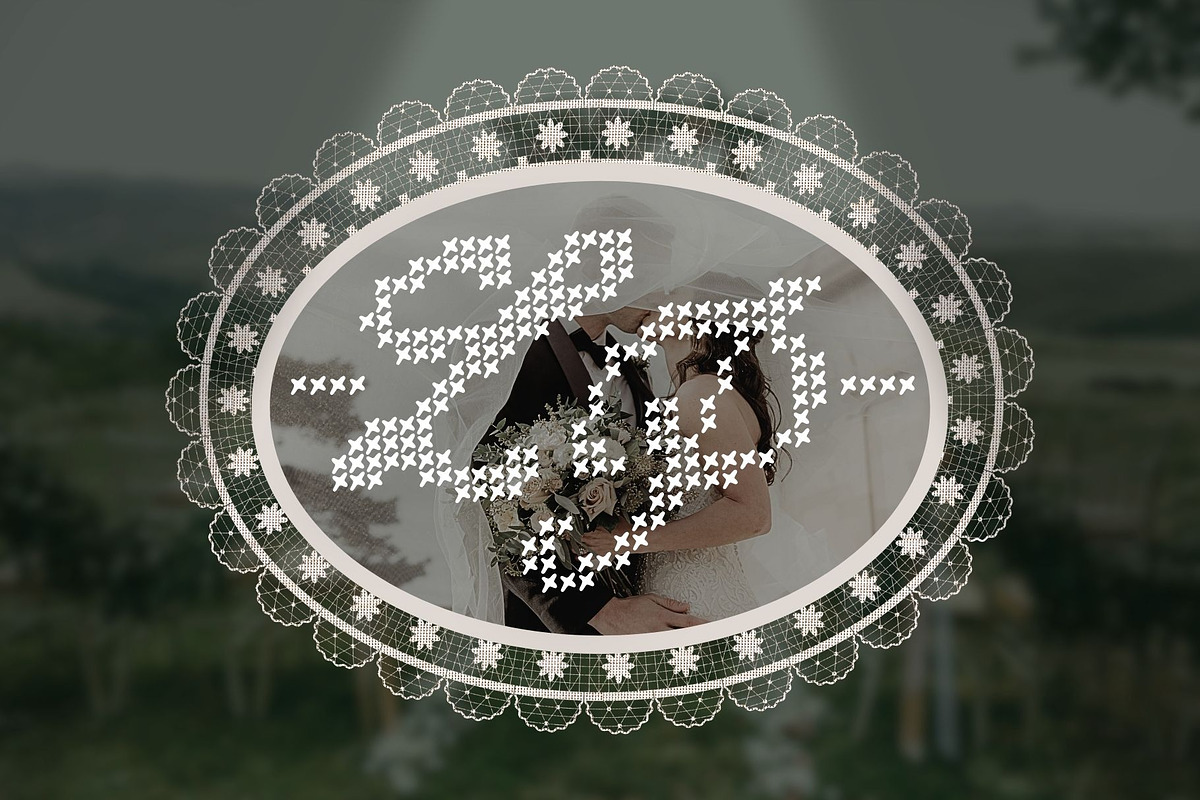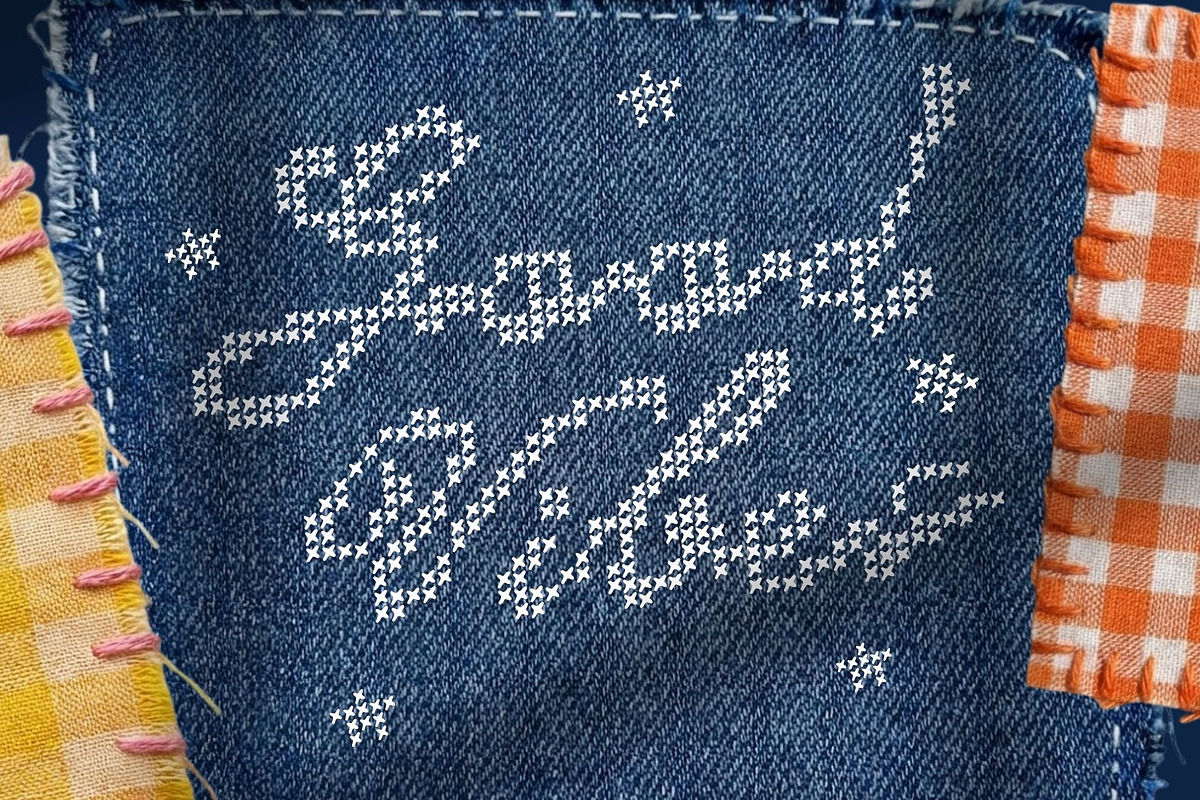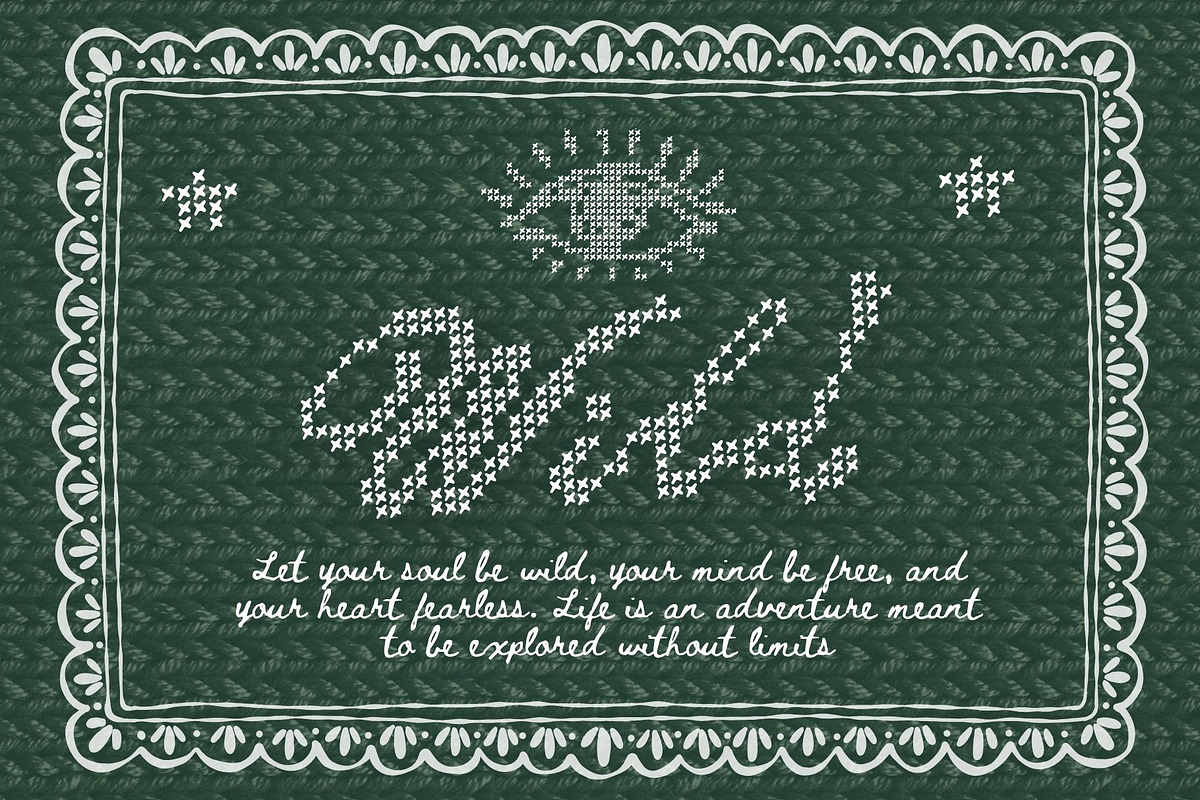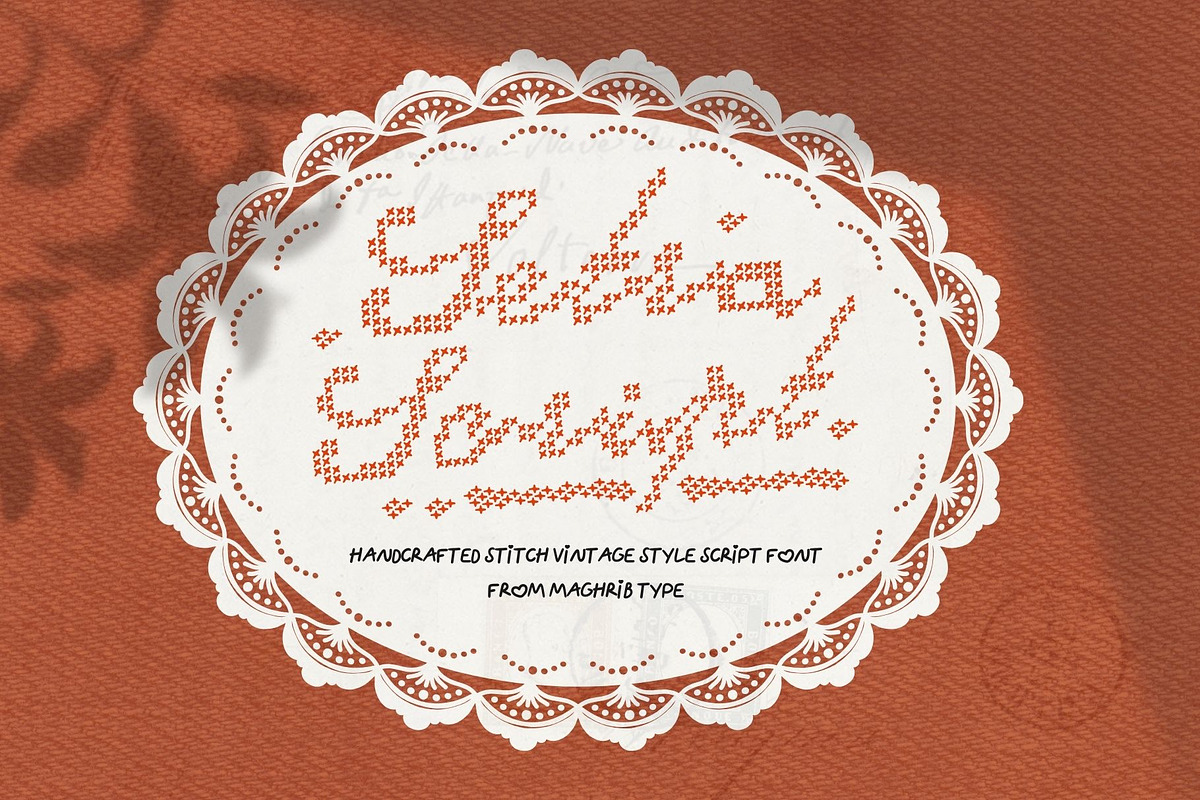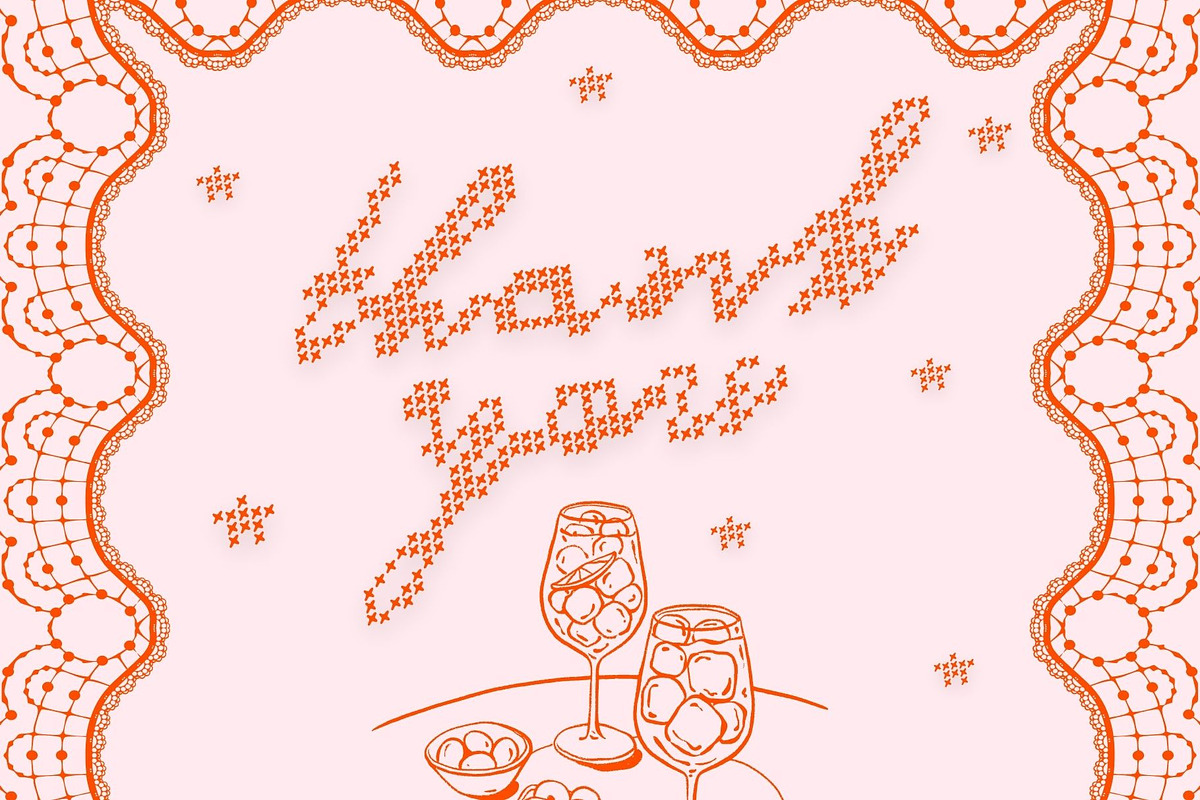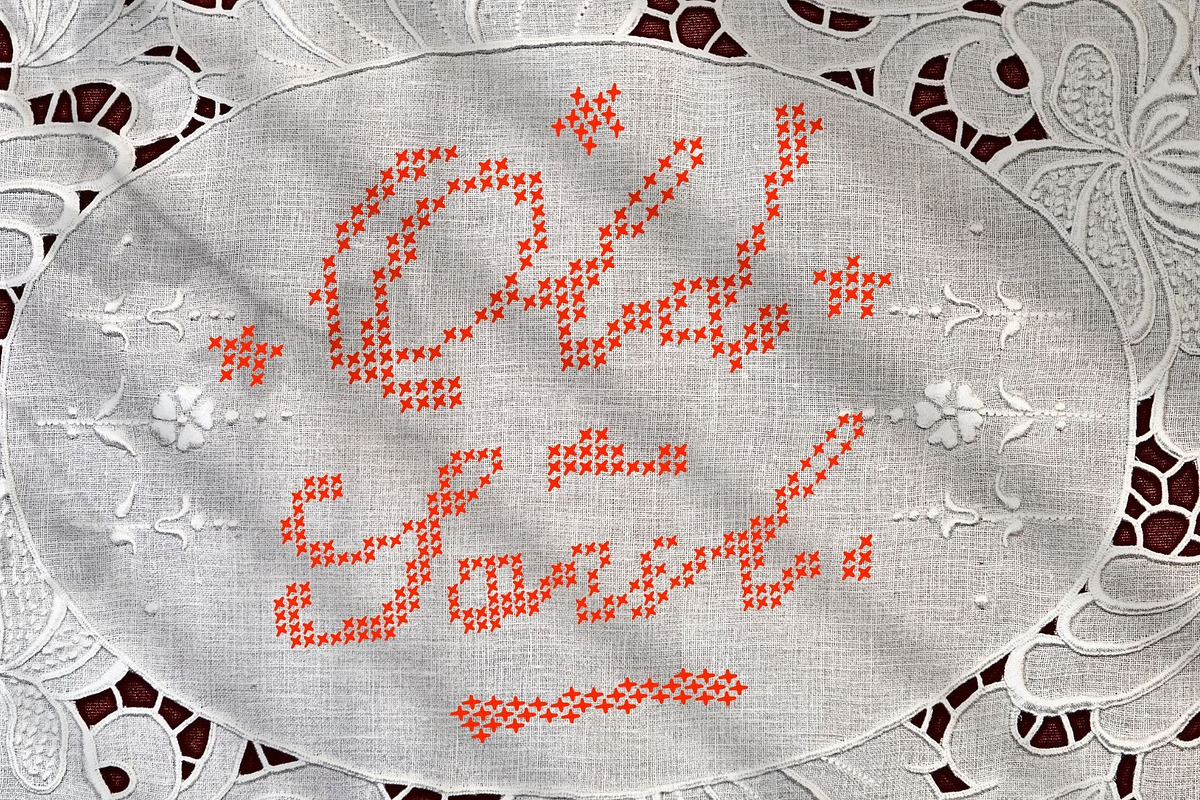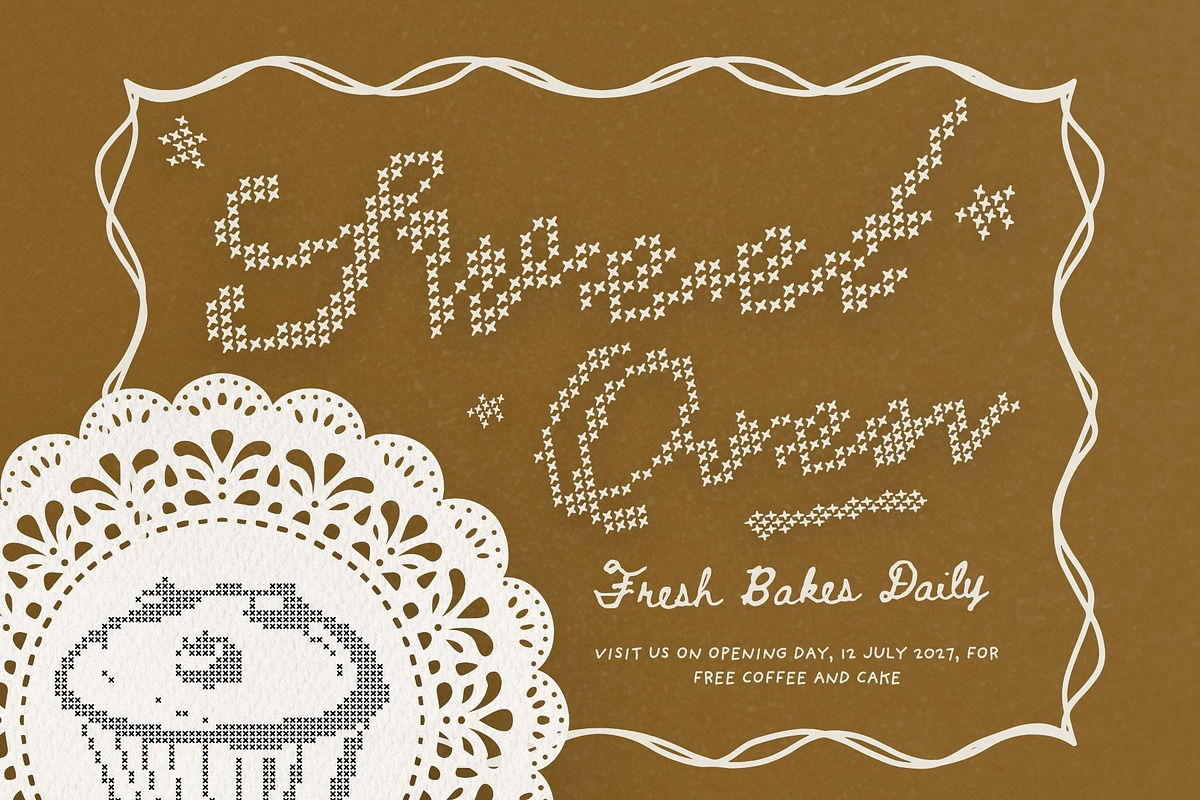
Setra Stitch Script
Setra is a unique script font inspired by the beauty of handmade stitching and textile crafts. Designed with delicate cross-stitch details, this font brings the charm of embroidery and knitting into modern typography. Every letter is carefully crafted to resemble small stitched threads, creating a warm, handcrafted appearance that feels both artistic and authentic.
The flowing script style combined with the stitched texture gives Setra a distinctive personality that stands out from typical script fonts. It captures the feeling of handmade fabrics, vintage sewing patterns, and cozy craft aesthetics, making it perfect for designs that want to express creativity, warmth, and artisanal quality.
Because of its decorative yet readable style, Setra works beautifully across many creative projects. It is ideal for branding, logos, product packaging, fashion labels, craft products, handmade shops, apparel design, posters, headlines, social media graphics, and merchandise. The stitched look also makes it especially suitable for textile themes, denim designs, embroidery concepts, knitting visuals, and DIY craft branding.
Whether you are designing for a handmade business, a lifestyle brand, or a vintage-inspired project, Setra adds a charming stitched character that brings your typography to life. This font helps create designs that feel personal, creative, and memorable.
Bring the warmth of handcrafted stitches into your design with Setra.